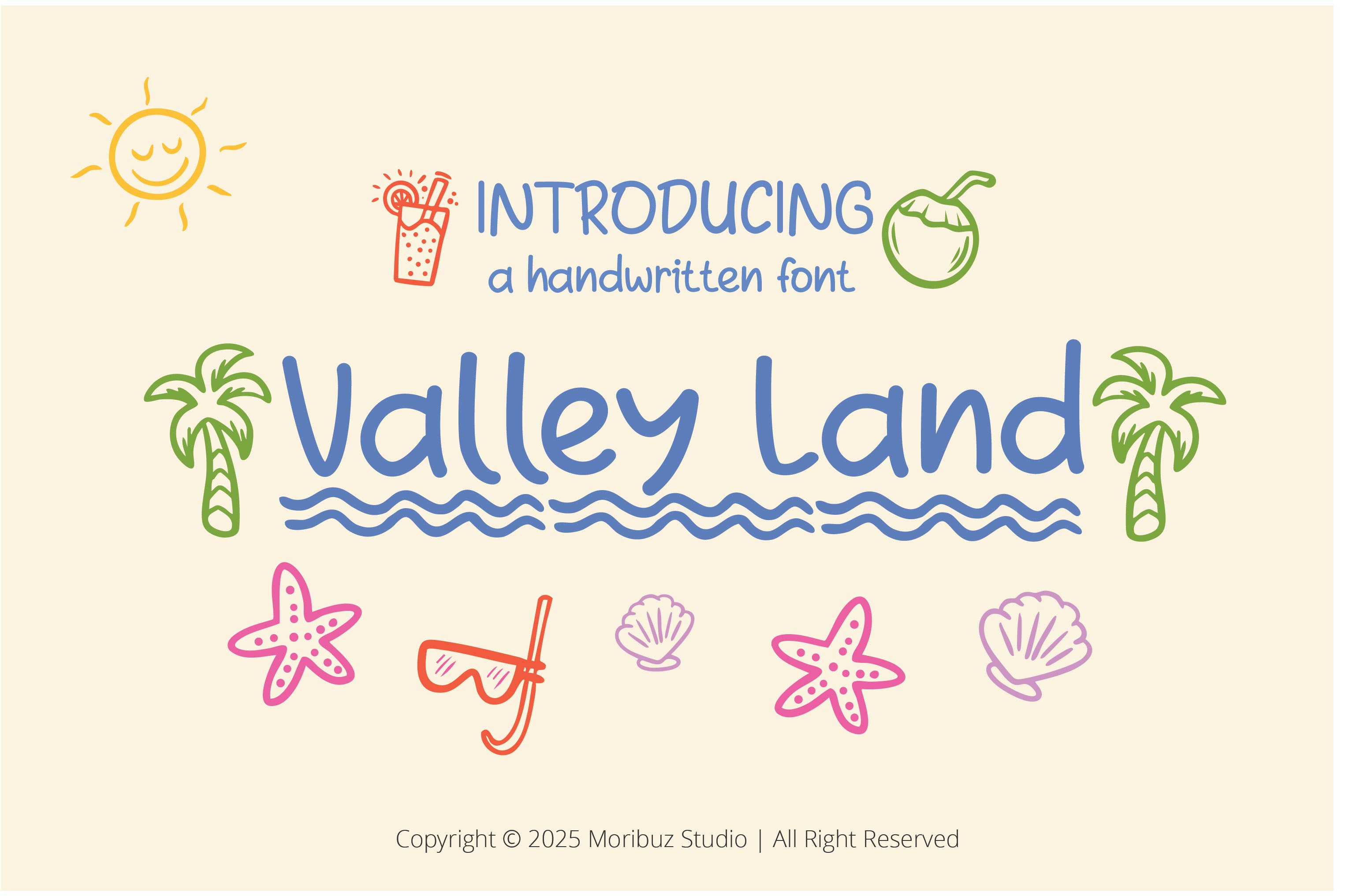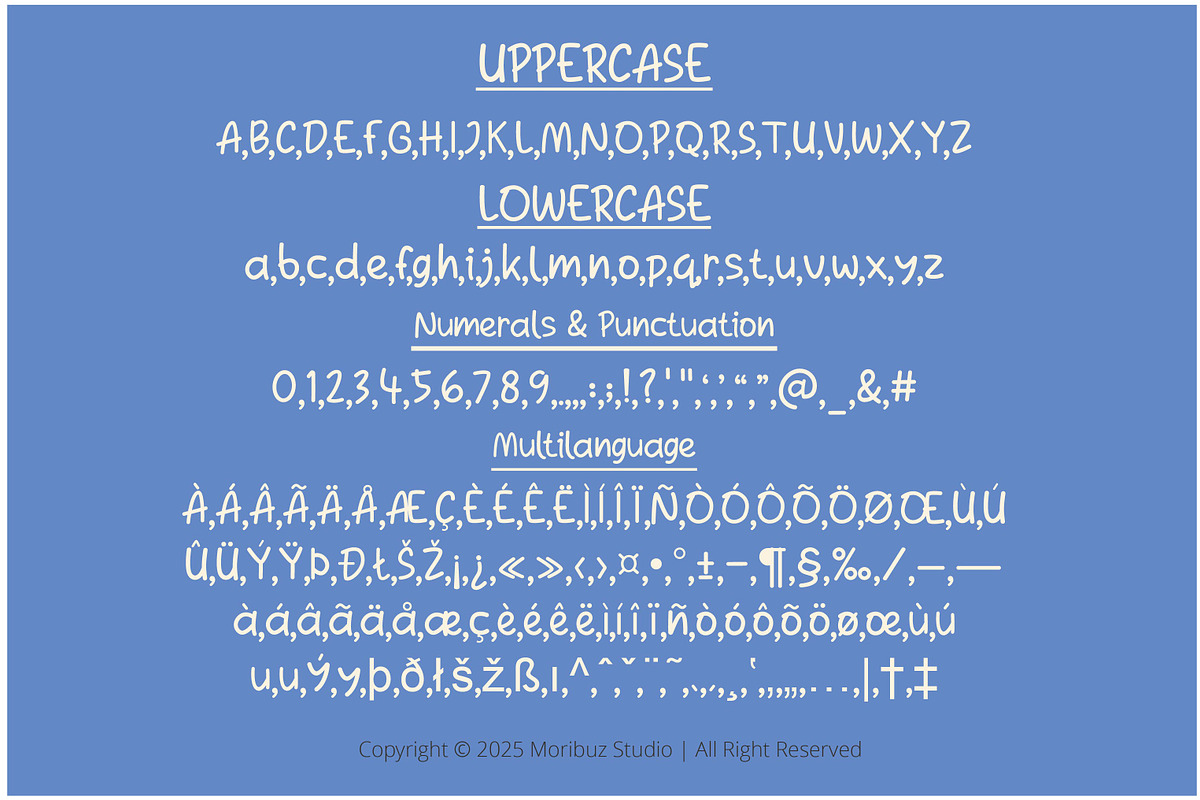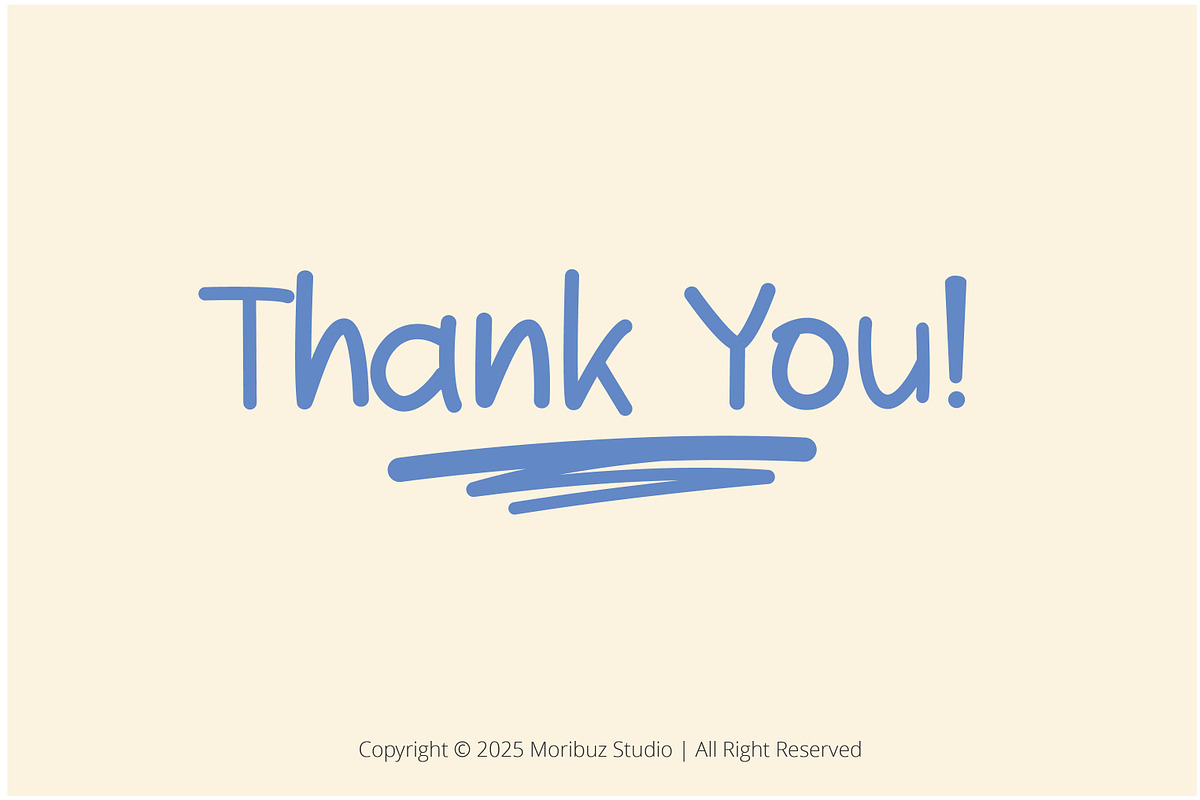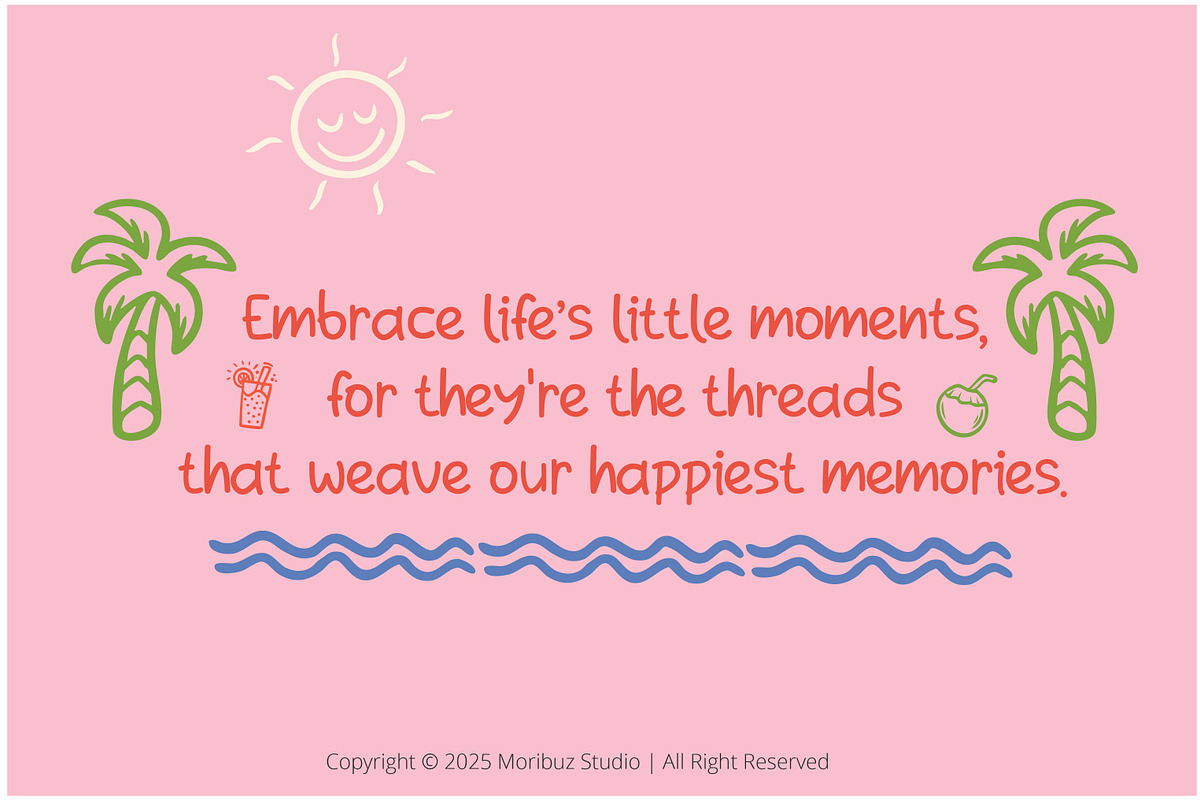
Valley Land | Handwritten Font
Introducing a handwritten font, Valley Land! This sweet little handwritten font is perfect for all your sweet and quirky creations! Use it to create greeting cards and quotes, pair it with illustrations, create minimal designs, label designs, and more!
Switch between uppercase and lowercase characters to try different variations of the characters and achieve a natural handwritten look.
- Multilanguage Supports 60+ Latin-based languages